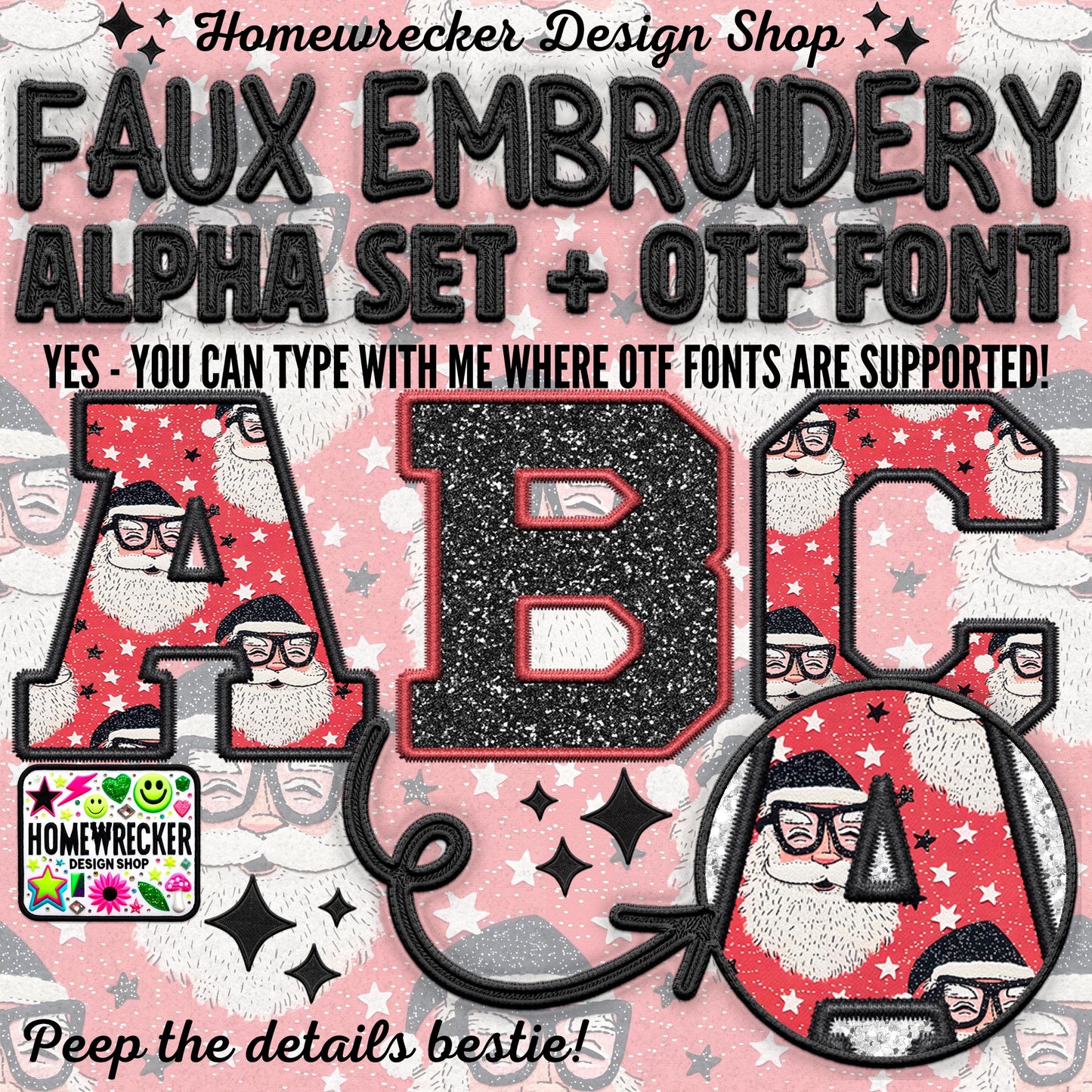
Santa Digital Alpha Set + OTF Font, Faux Embroidery Christmas Alpha, Varsity Letter Style Alpha, Clipart, Make your own designs, Digital file
Faux Embroidery Alphabet Set - PNG Files + OpenType Font Option
******For this OTF font - toggle between uppercase and lower case to rotate the Santa style and glitter style******
Bring a touch of realism to your digital designs with our Faux Embroidery Alphabet Set! This collection is perfect for creators who want to achieve the look of real embellishments, without the need for physical embroidery.
Whether you’re creating custom t-shirts, designing invitations, or crafting digital artwork, this alphabet set is designed for ease of use, letting you quickly piece together words and phrases. It’s as simple as dragging, dropping, and resizing the PNGs or typing directly with the font for even quicker designs!